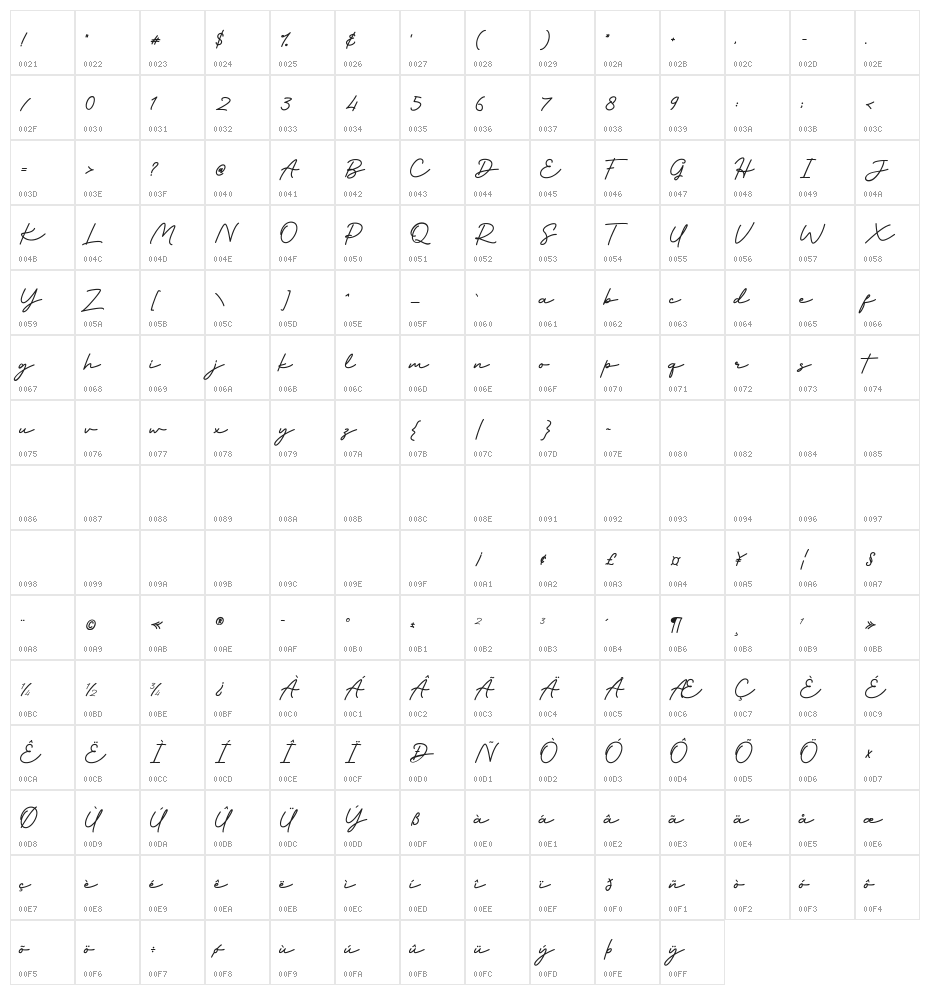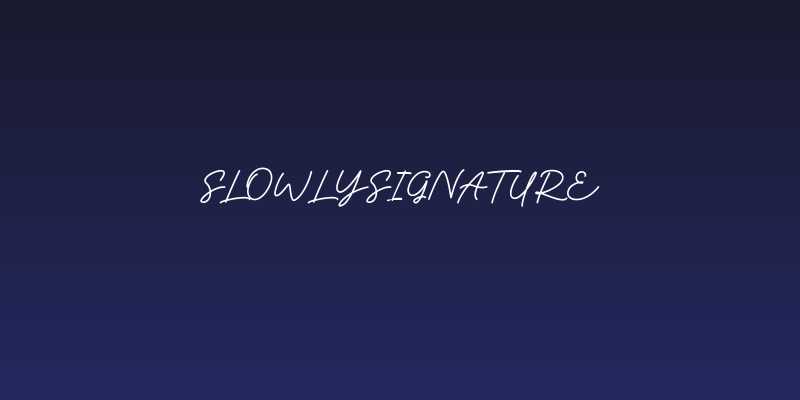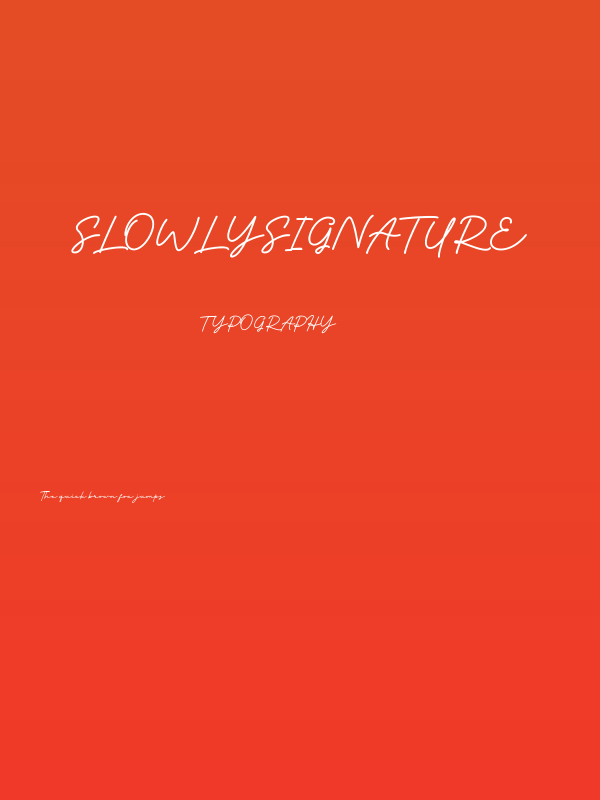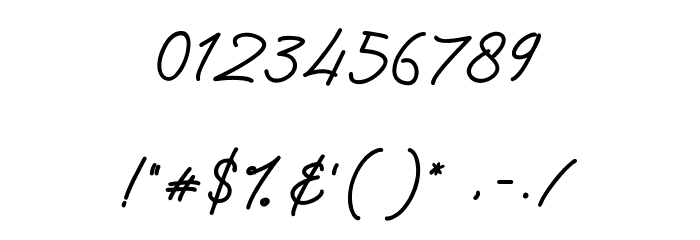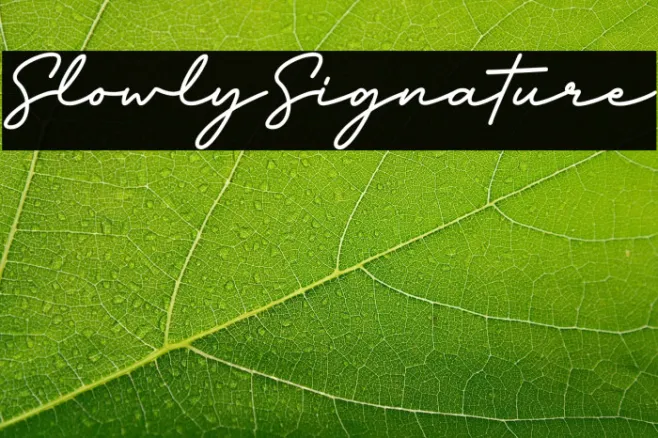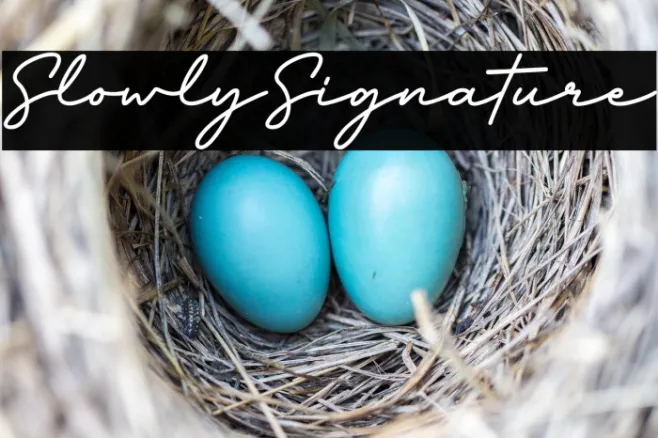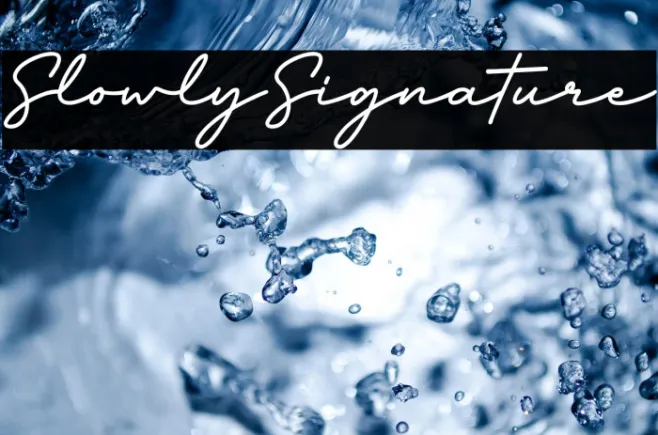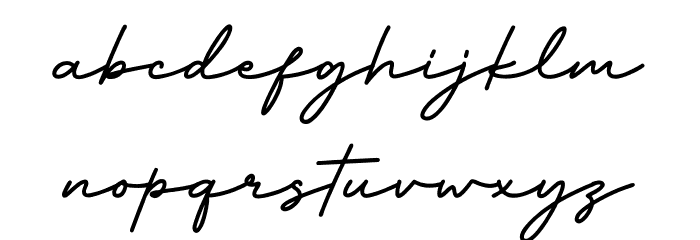
SlowlySignature Font
SlowlySignature Description
This font exudes a graceful and fluid style, reminiscent of elegant handwriting. The characters are connected in a flowing manner, creating a seamless and continuous look. The uppercase letters maintain a consistent height, while the lowercase letters exhibit a slight slant, enhancing the cursive appearance. The numerals are clear and legible, matching the overall aesthetic of the script. Special characters are integrated smoothly, maintaining the cohesive style. This font is perfect for projects that require a personal touch, such as invitations, greeting cards, or branding materials.
| Use Case | Logos, Invitations, Stationery |
| Proposed Projects | Ideal for wedding invitations, personal branding, greeting cards, and elegant stationery. |